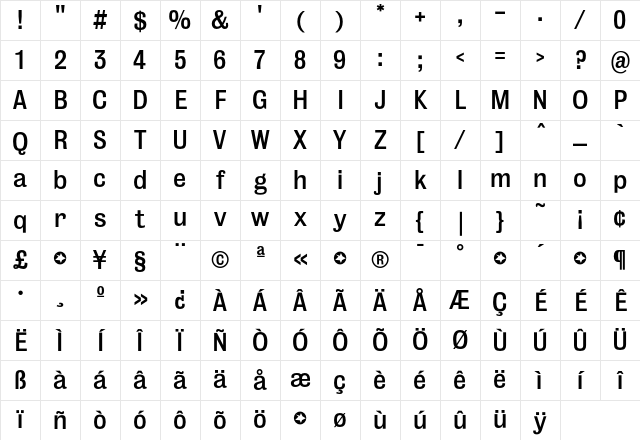
BureauGrotFiveThree is a composed and adaptable typeface that performs quietly and consistently across a wide range of design contexts.
Pro Tip: Use BureauGrotFiveThree in both headline and body roles to test its range before committing to a single application.